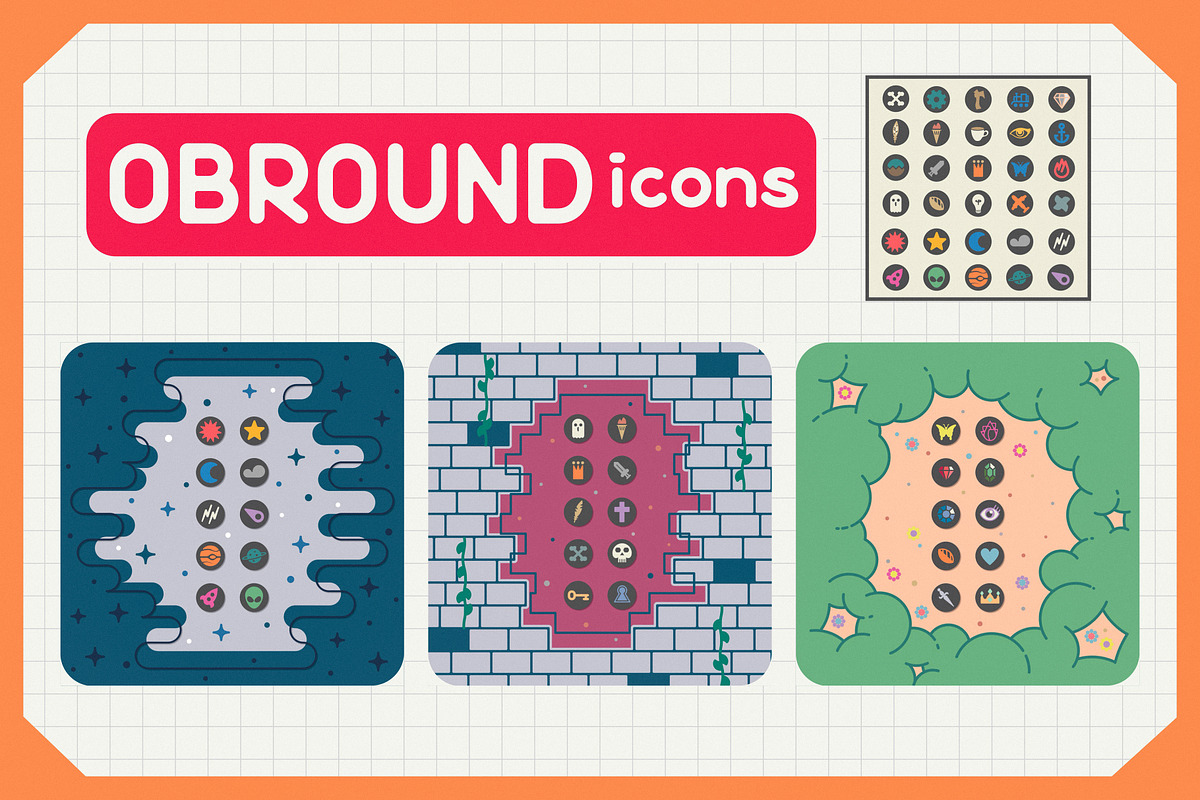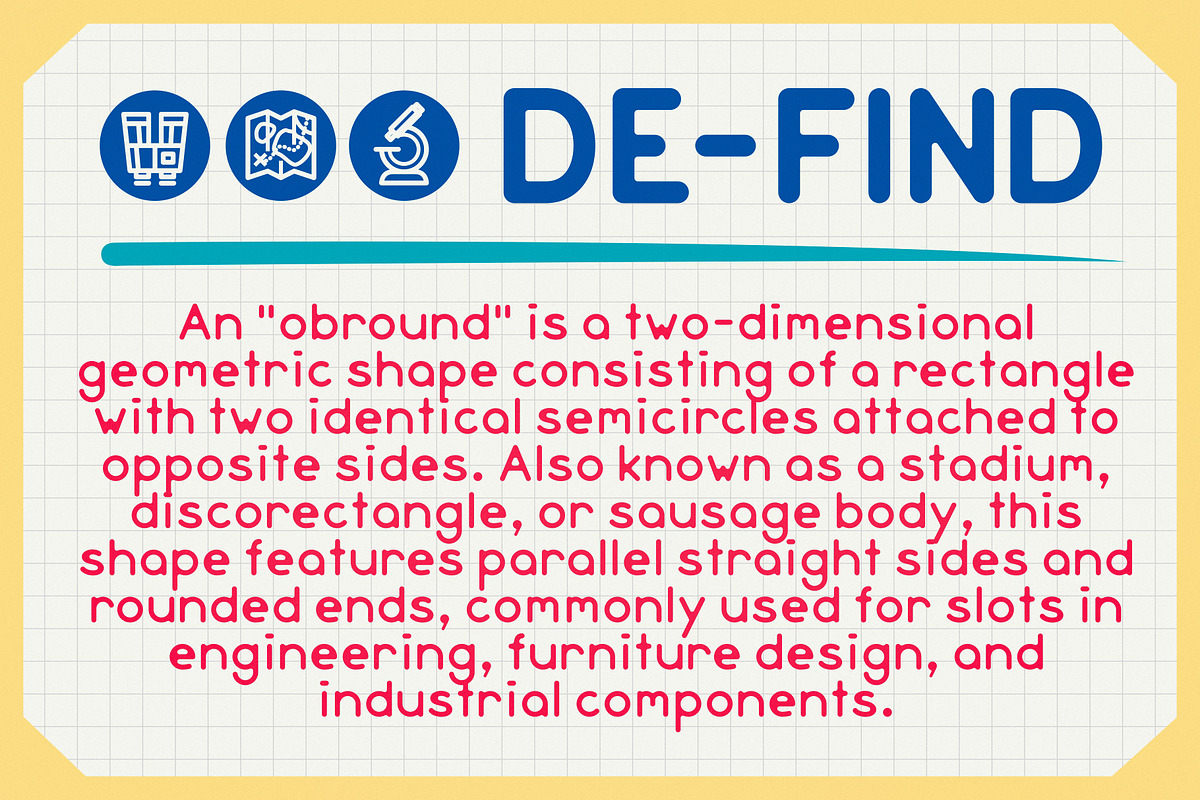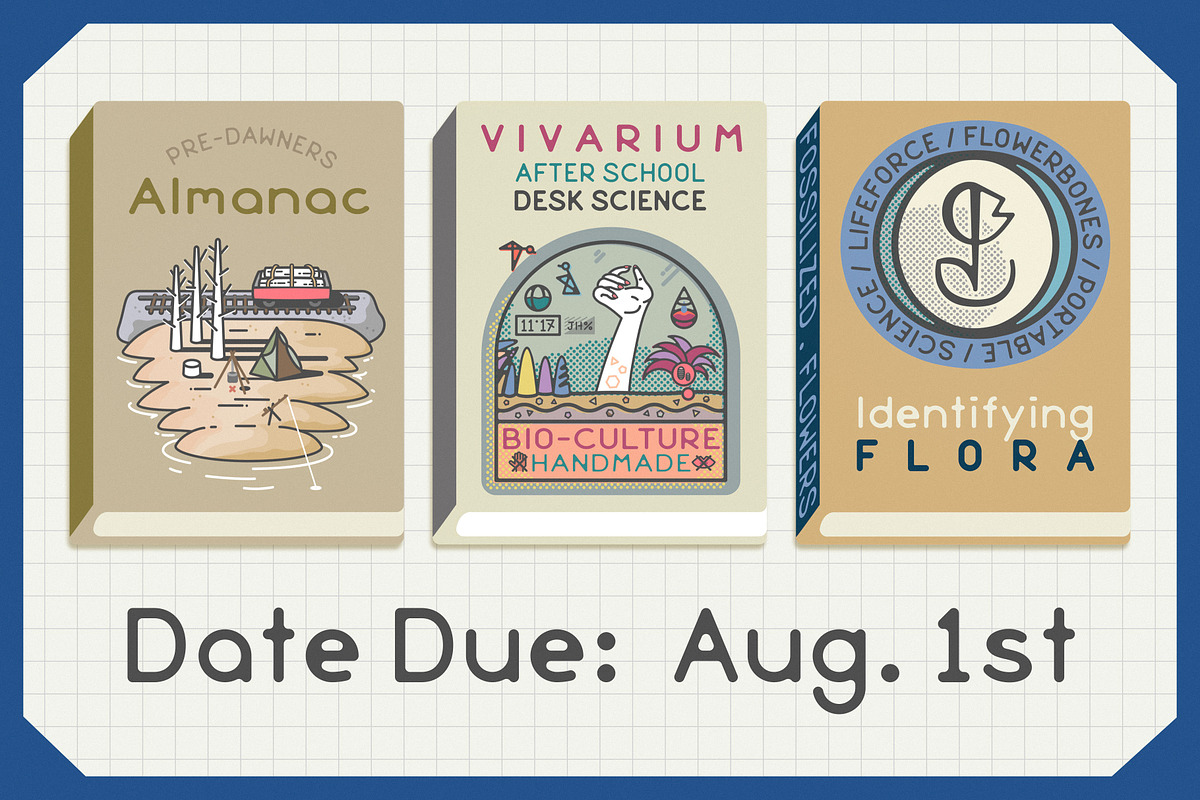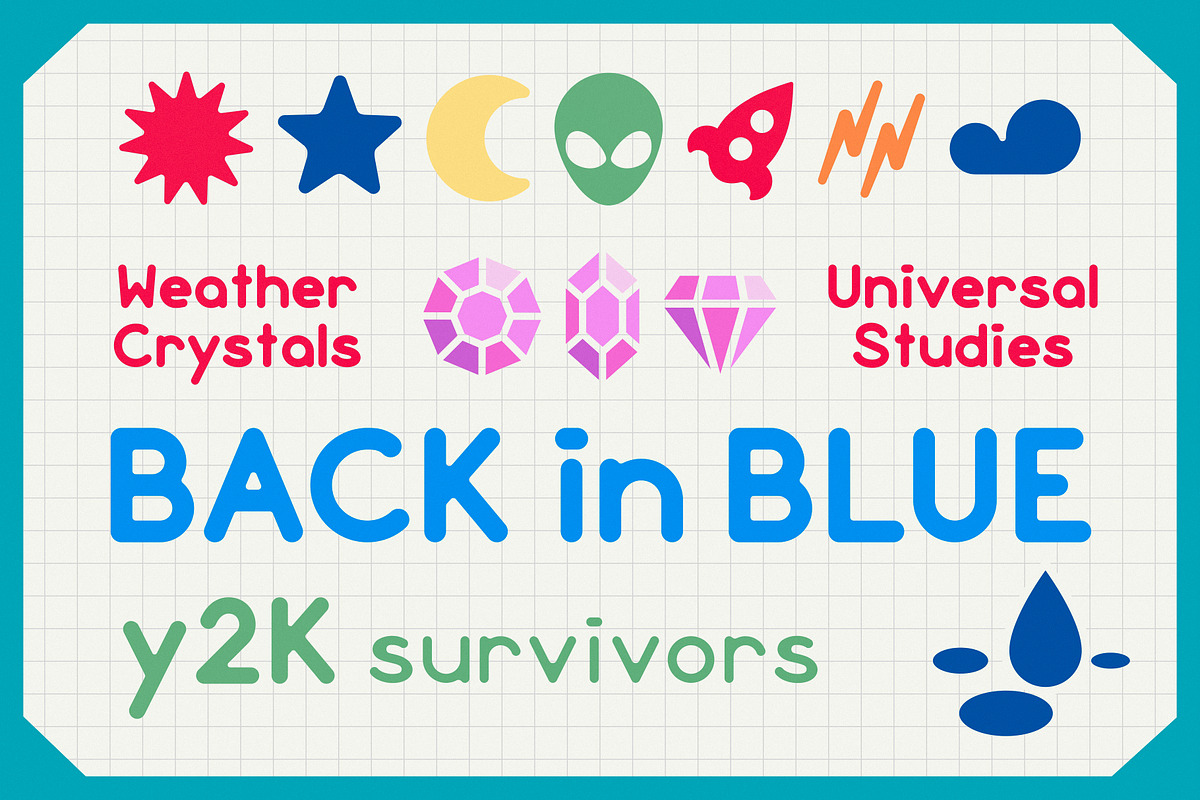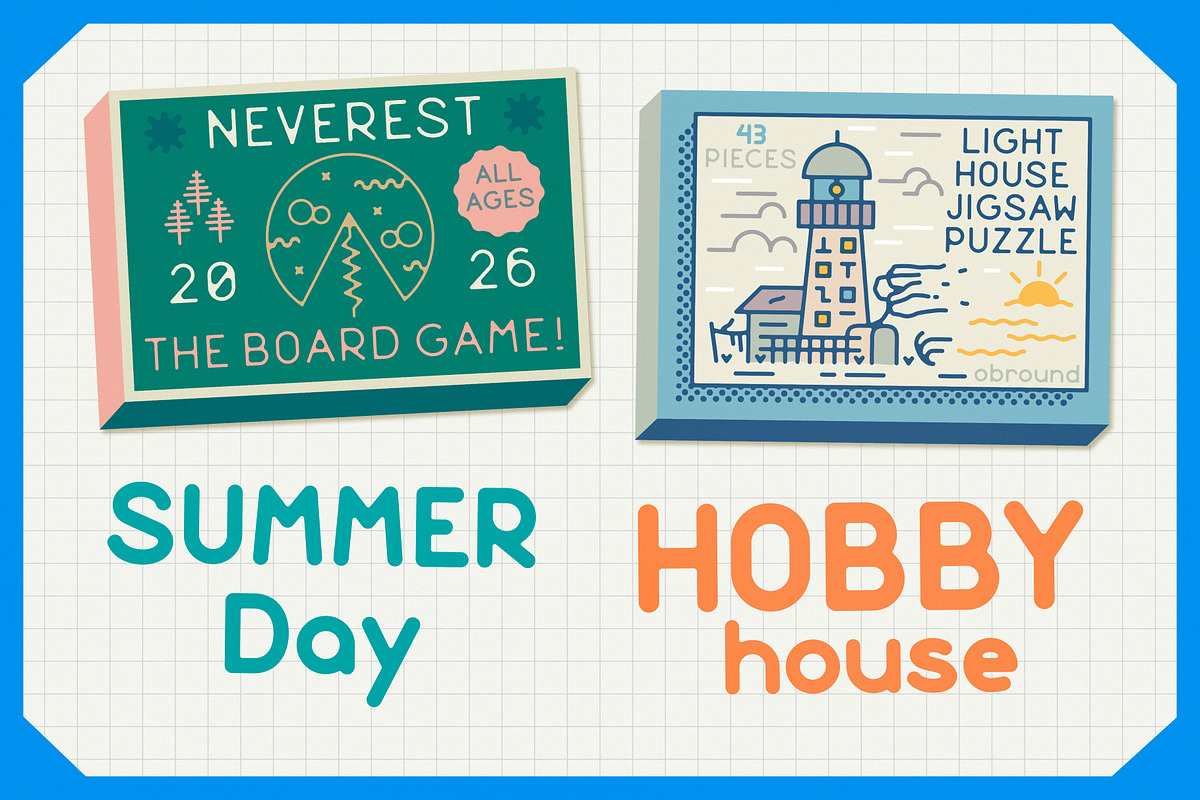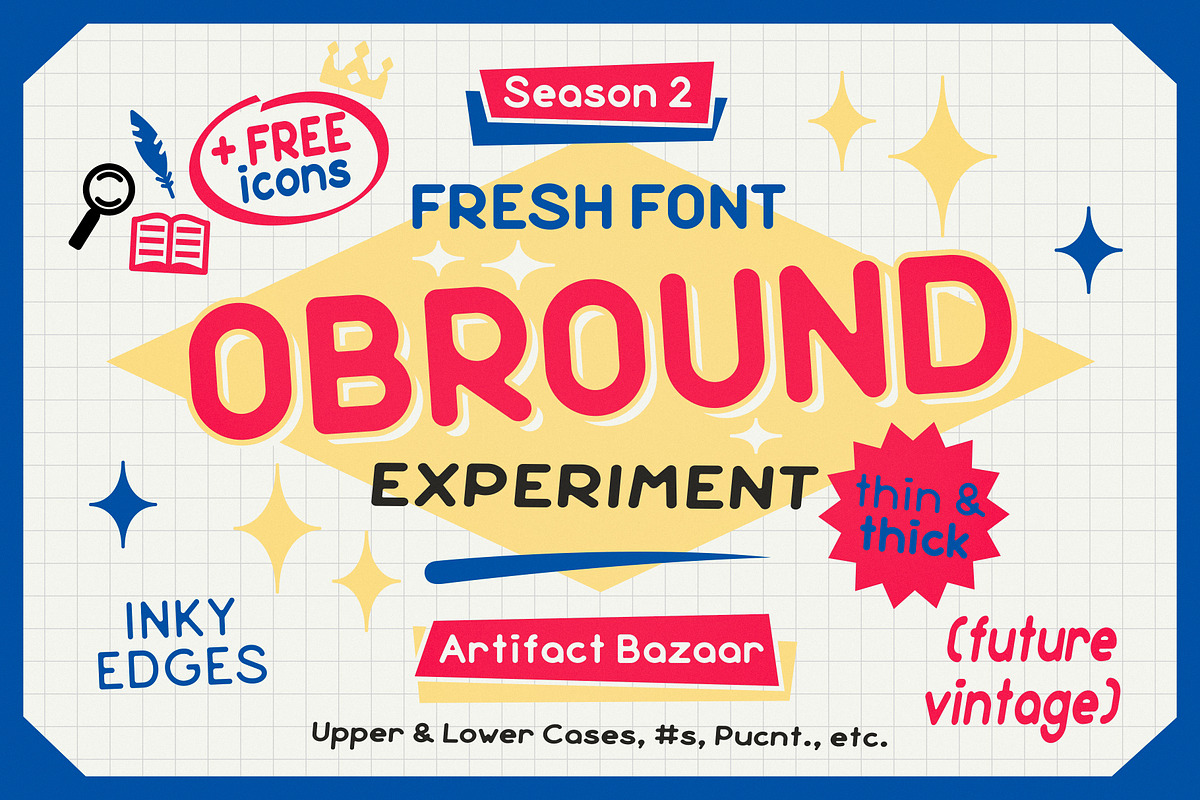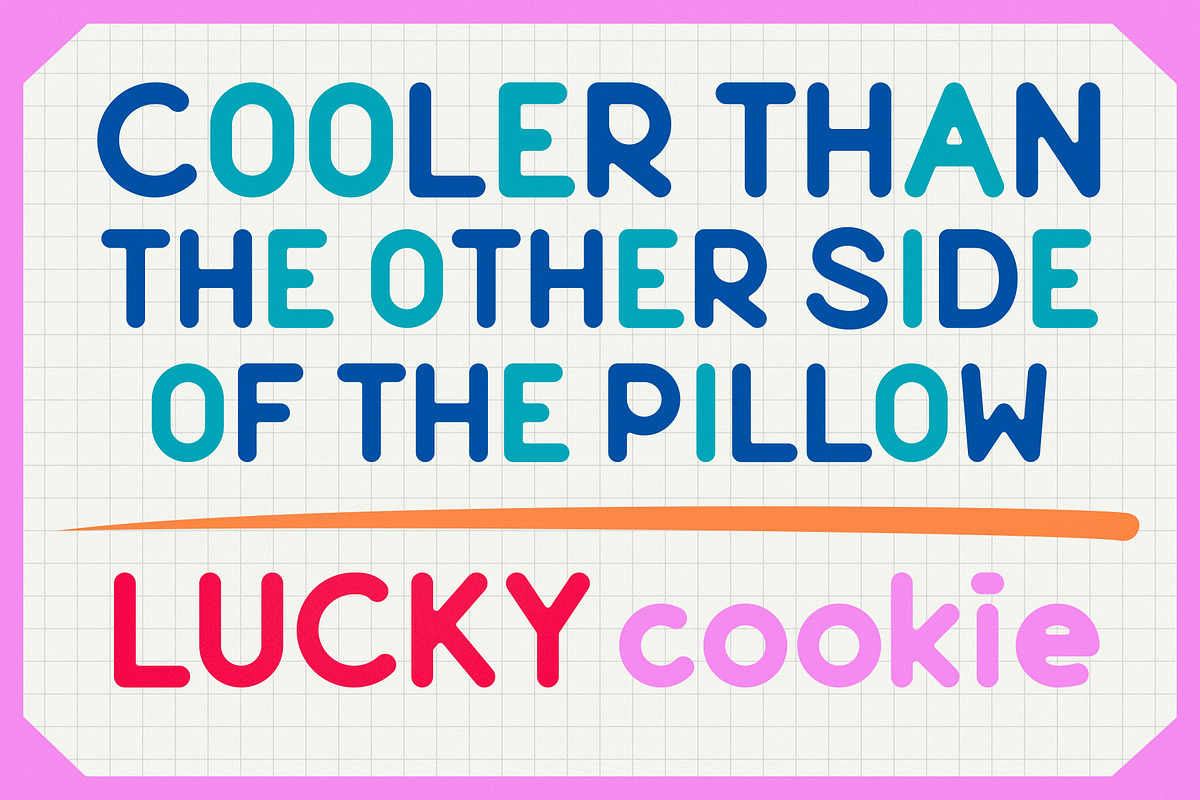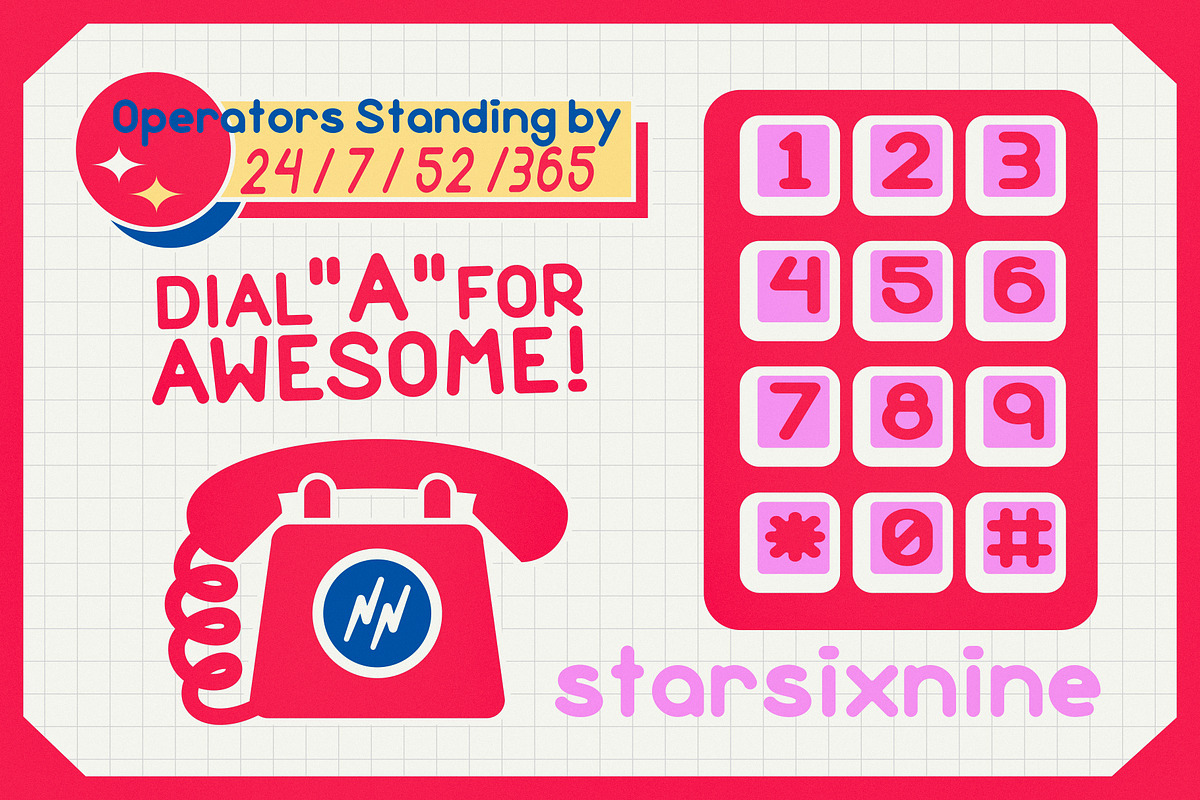
Obround | Y2K Sketchbook Sans
An experimental future vintage back to school 90s and y2k bubbly, inky, liney notebook doodle sans serif. Yep, that pretty much explains it all. Hope you enjoy!
A Season 2 Artifact Bazaar font
All Numbers, Punctuation and Special Characters included
Upper and Lower cases
2 Styles
Bonus ICON FONT with 2 styles (plain and badge)
52 Icon Drawings
Thin
Thick
Icons